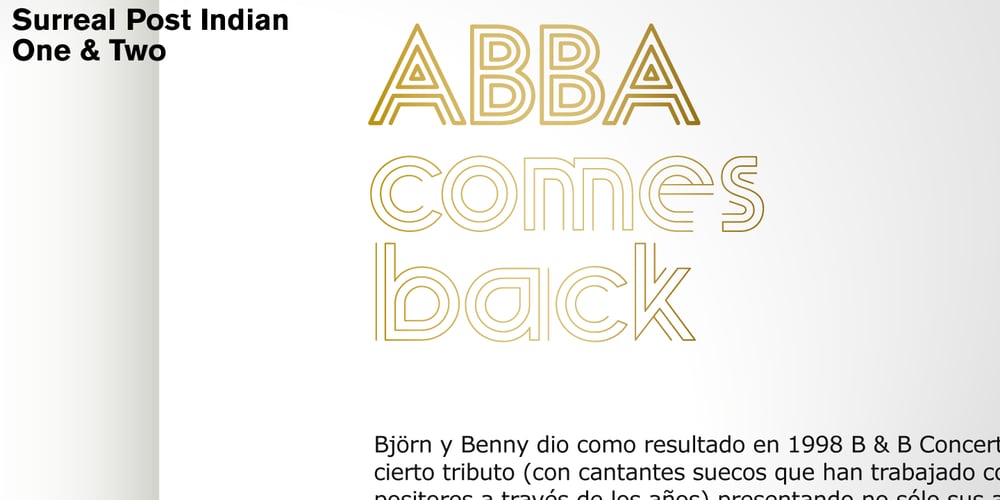
Surreal PostIndian
Surreal PostIndian font
Surreal PostIndian Font Family was designed by Laura Klamburg and published by Type-Ø-Tones. Surreal PostIndian contains 2 styles and family package options. Surreal PostIndian by Laura Klamburg. OpenType, 2 styles According to its creator, Surreal Post Indian was inspired by the performance of an American Indian artist, but this typeface seems more connected with pop neon signs. Anyway, here is an amusing Laura Klamburg font. Enjoy it.